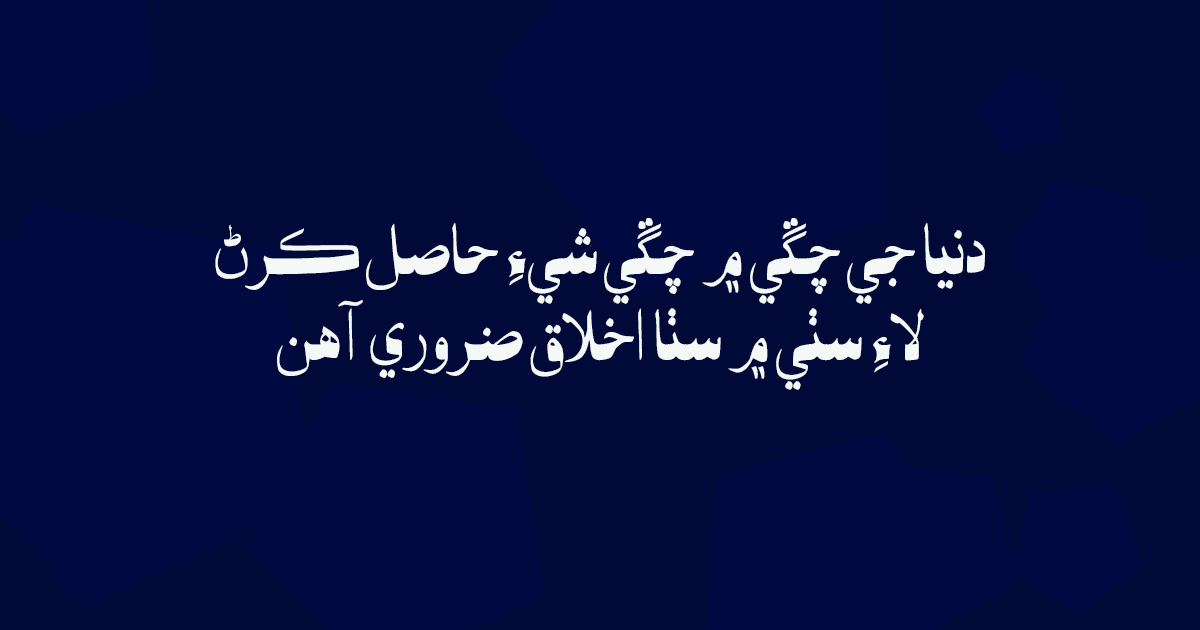
Sarem BD
Here is the updated version of the font the Sarem BD. The font Sarem BD is a Sindhi Standard Font for your designs particularly for the paragraphs. It confirms the latest Unicode standards also. Sarem BD is free of charge to download and install on your computer.